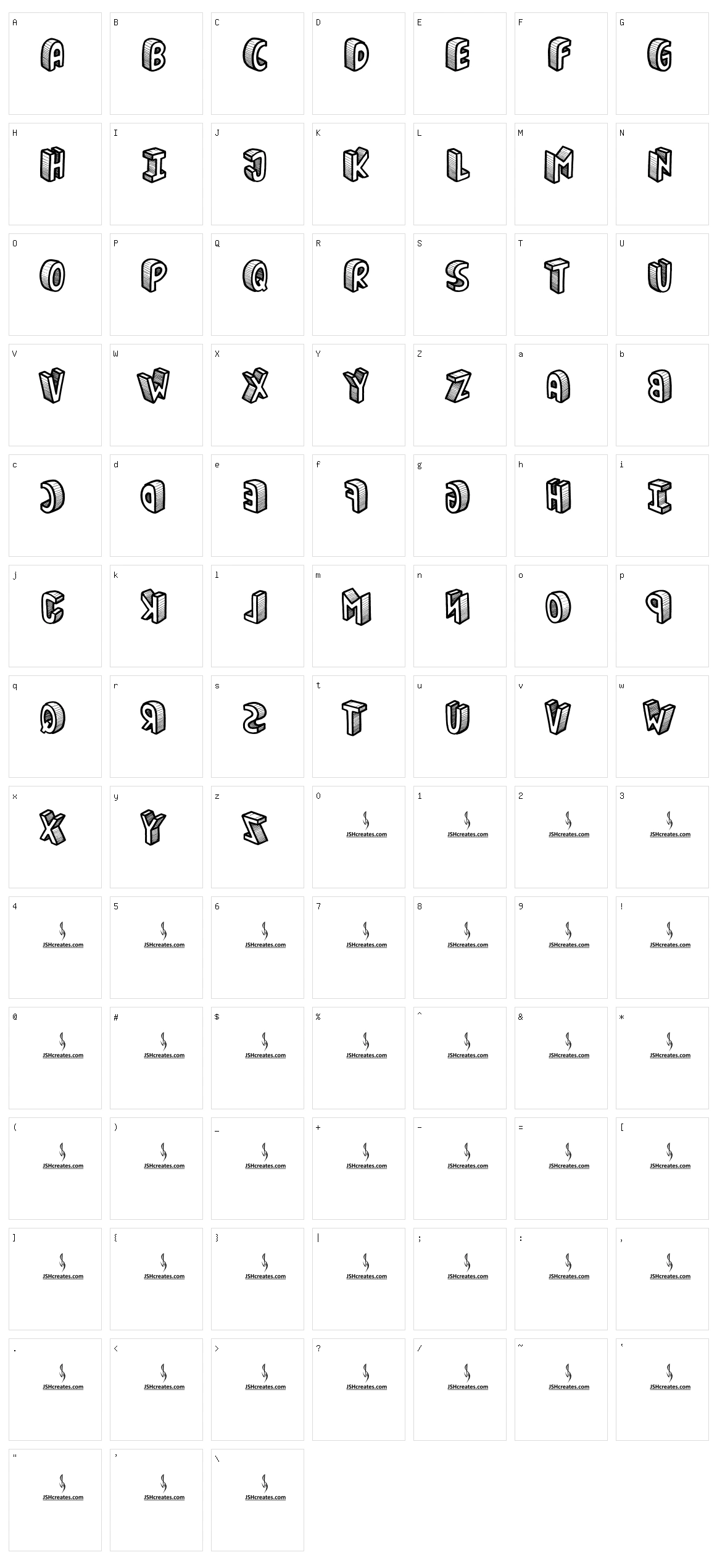
The free font Mirror Mirror is carefully designed by JSH creates, showcasing a thoughtful balance of creativity and usability and falls under the Cartoon font style. When you download the ZIP file, it contains only 66.54 KB of font files, making it lightweight and quick to download. Please review the license details below to understand permitted usage and distribution rights. If license information is not available, we recommend using this font for personal projects only or contacting the author directly for commercial usage permissions.
Created by Jonathan S Harris